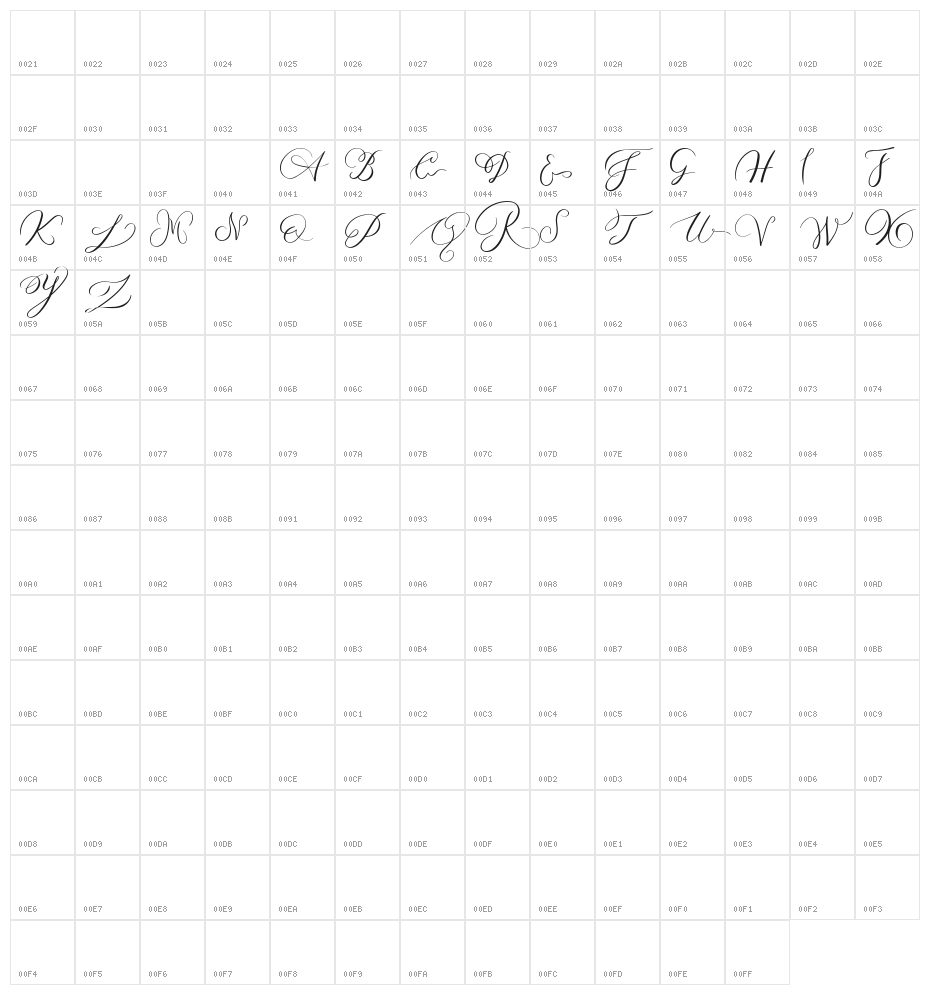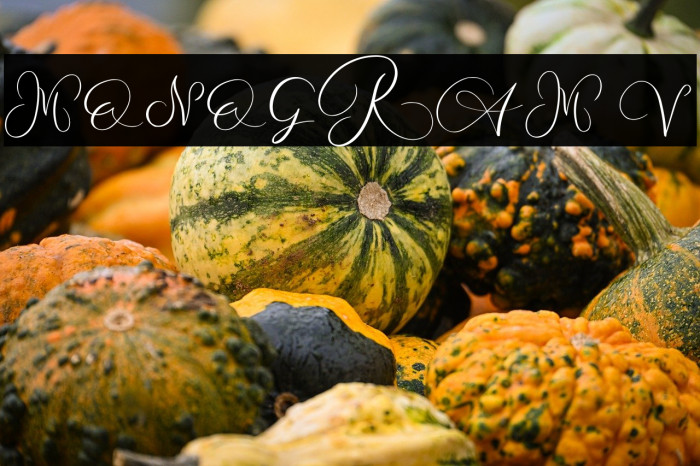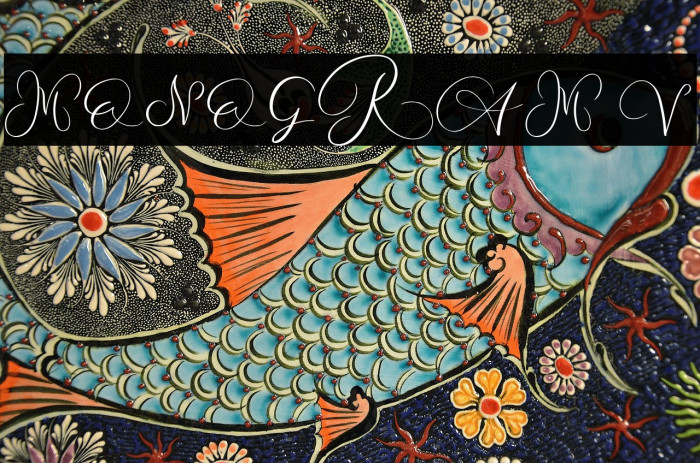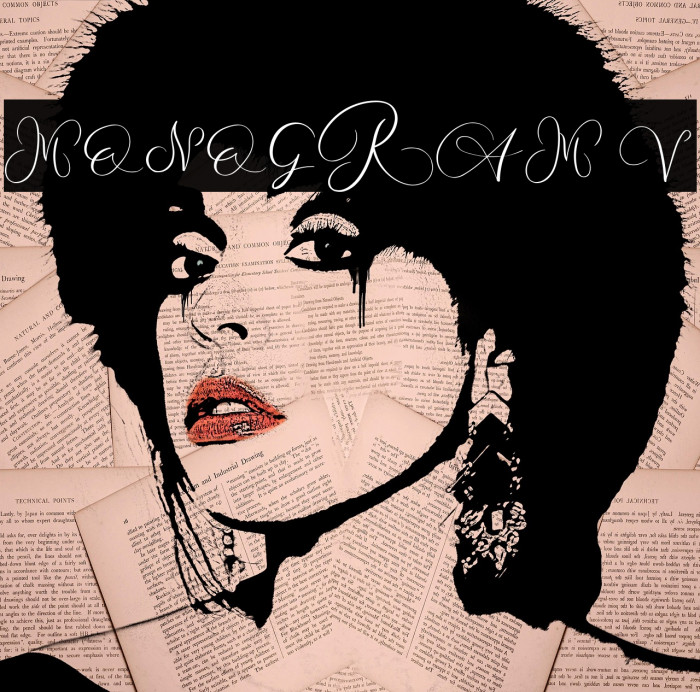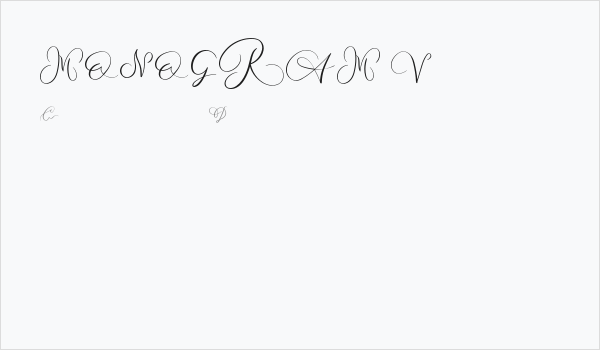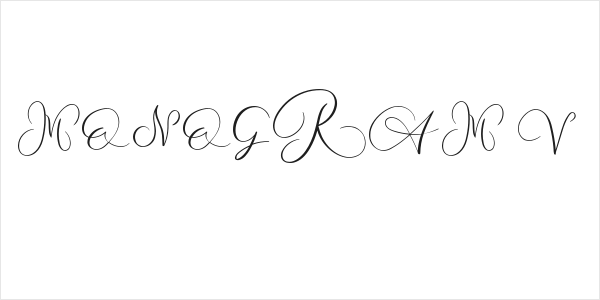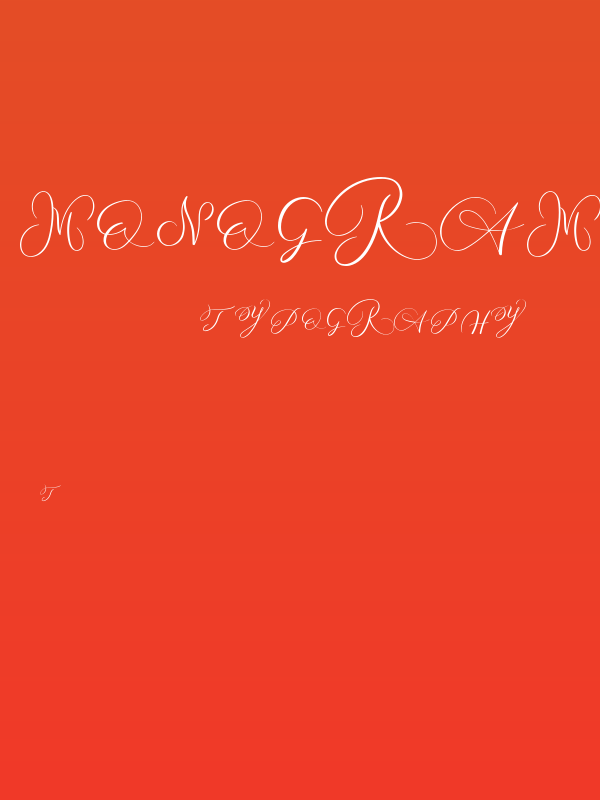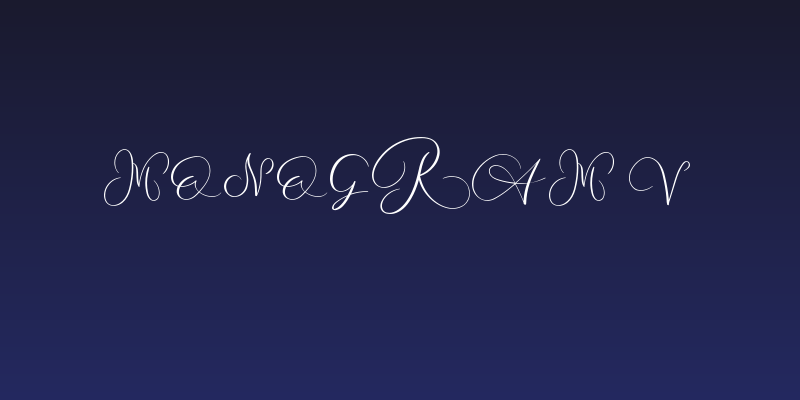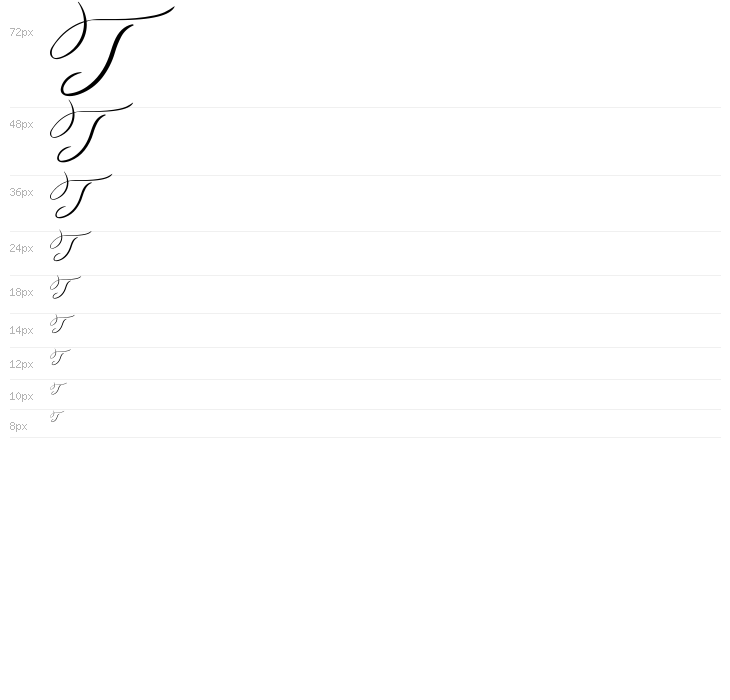
MONOGRAM V Font
MONOGRAM V Description
This font exudes elegance and sophistication with its intricate, flowing script style. Each letter is adorned with delicate swirls and flourishes, creating a sense of movement and grace. The uppercase letters are particularly ornate, making them ideal for creating monograms or decorative headings. The thin strokes and high contrast between thick and thin lines add to its refined appearance. This font is perfect for formal invitations, branding, or any project that requires a touch of class and elegance.
| Use Case | Logos, Invitations, Decorative Headings |
| Proposed Projects | Ideal for wedding invitations, luxury branding, monograms, and decorative headings. |